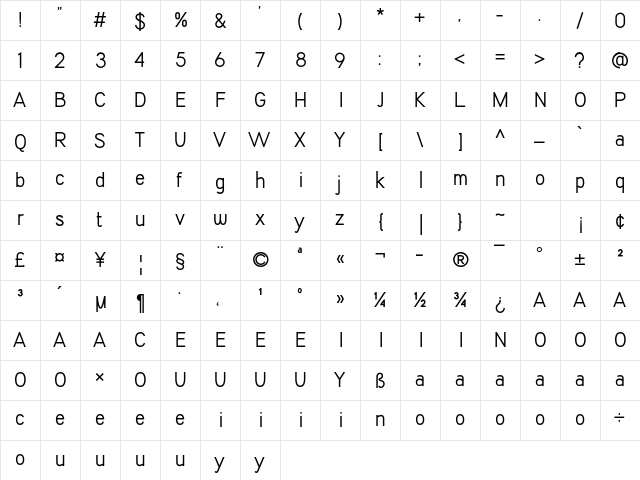
Kalyant Demo Regular
| Foundry | Sign Studio |
| Designer | Sugiyanto |
Design Context for Kalyant Demo Typeface
Kalyant Demo is a composed and adaptable typeface that performs quietly and consistently across a wide range of design contexts.